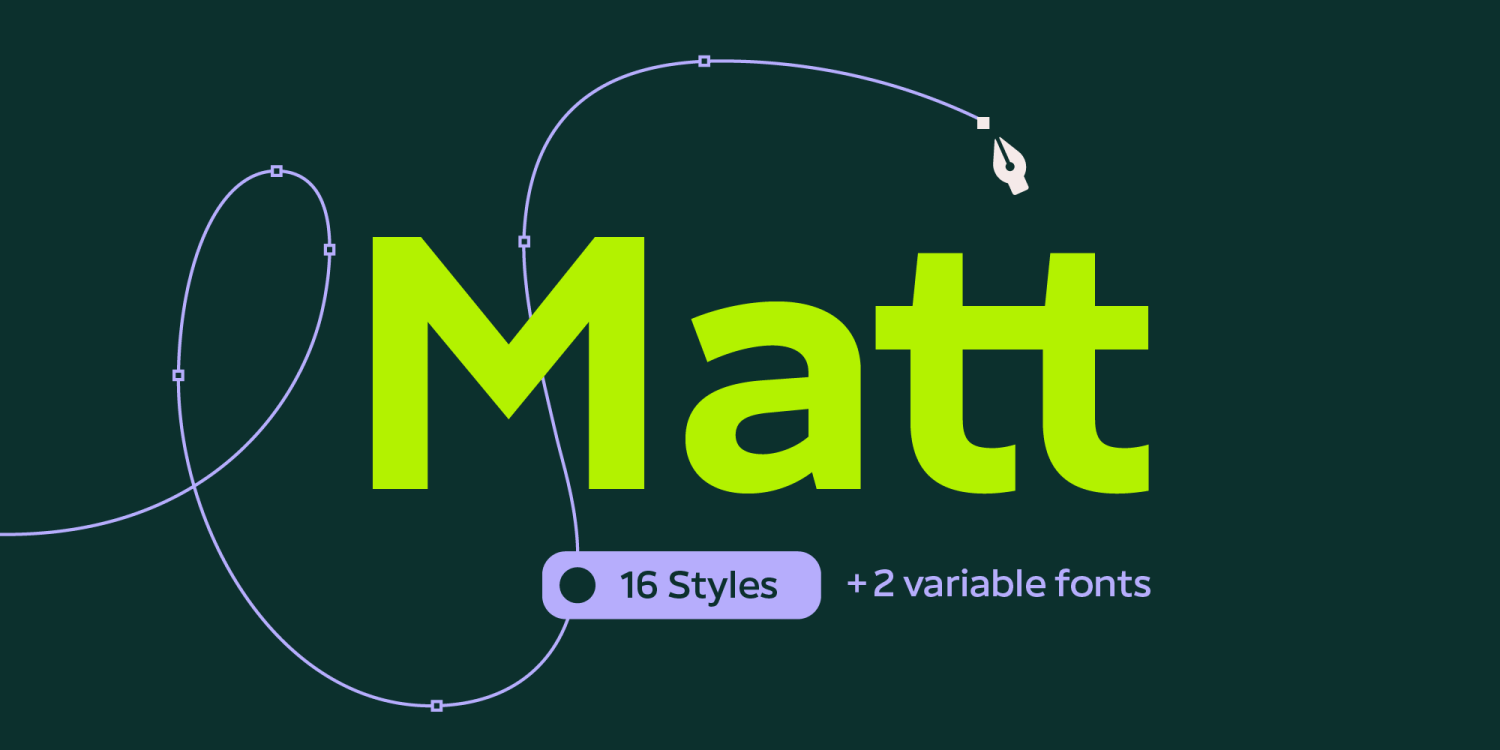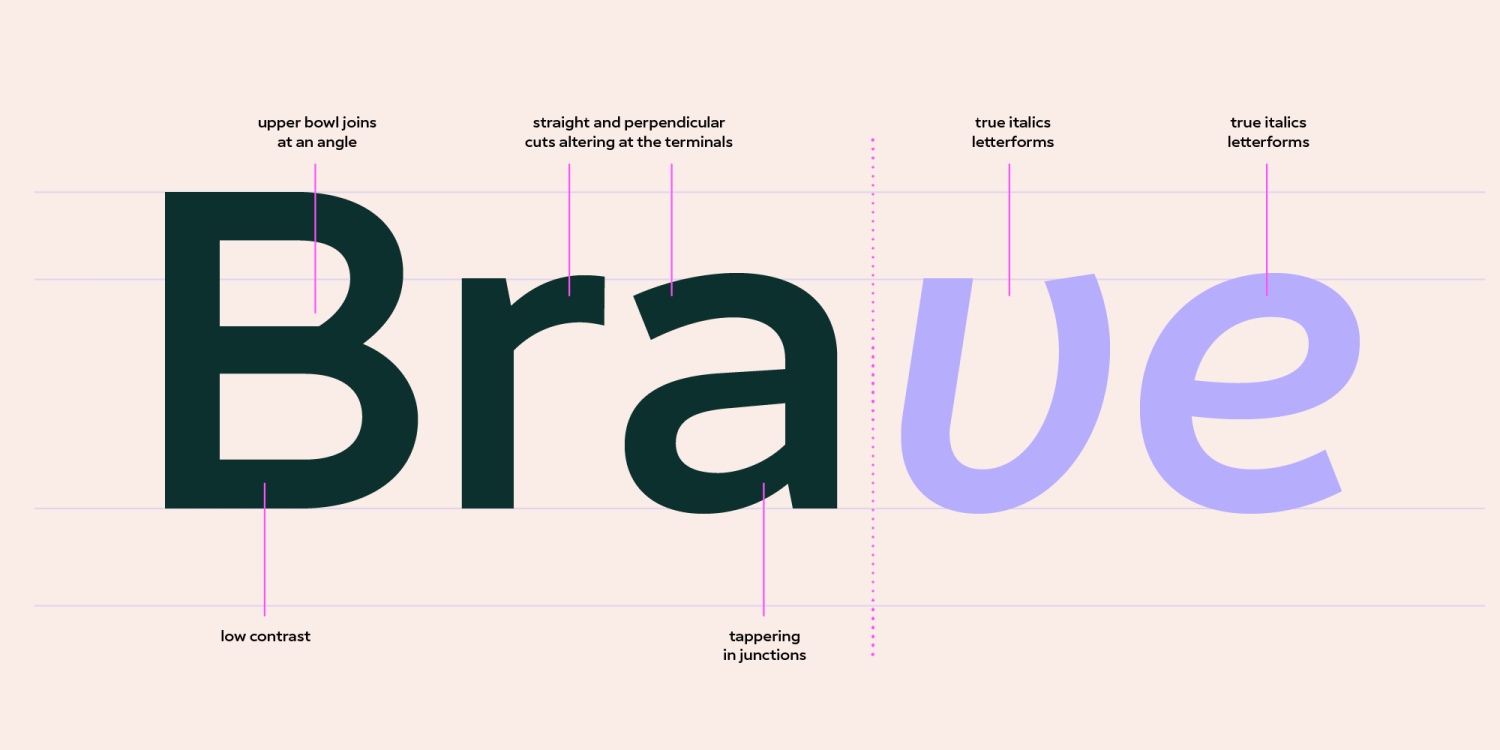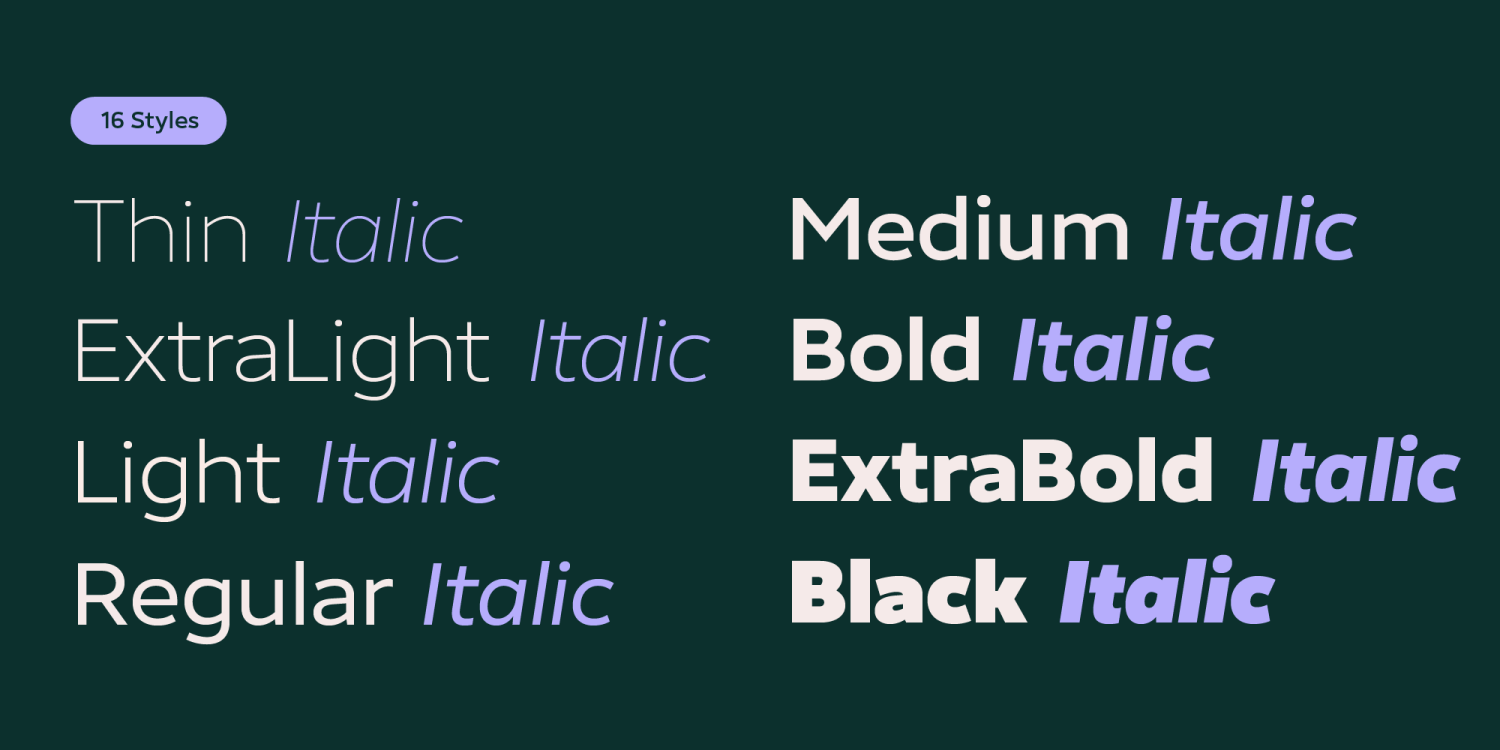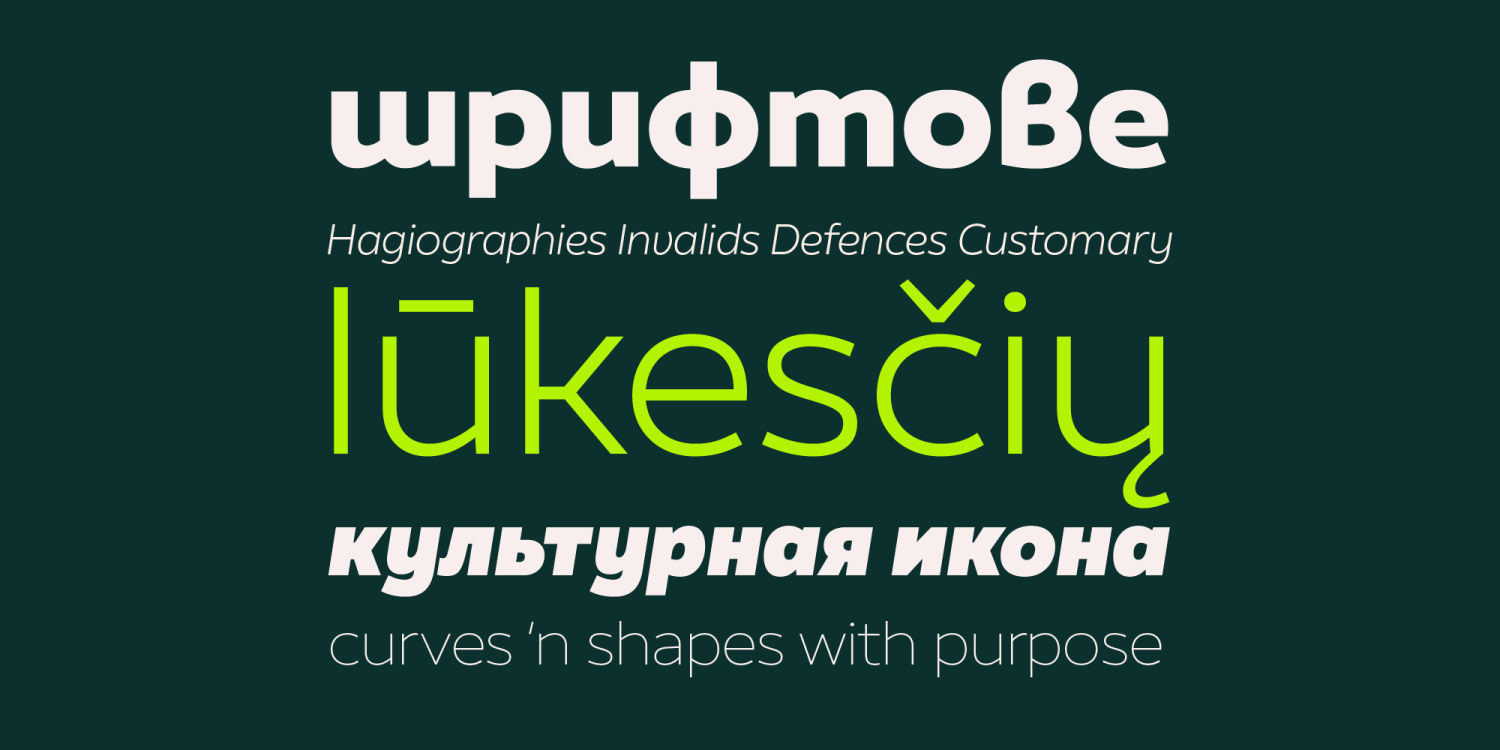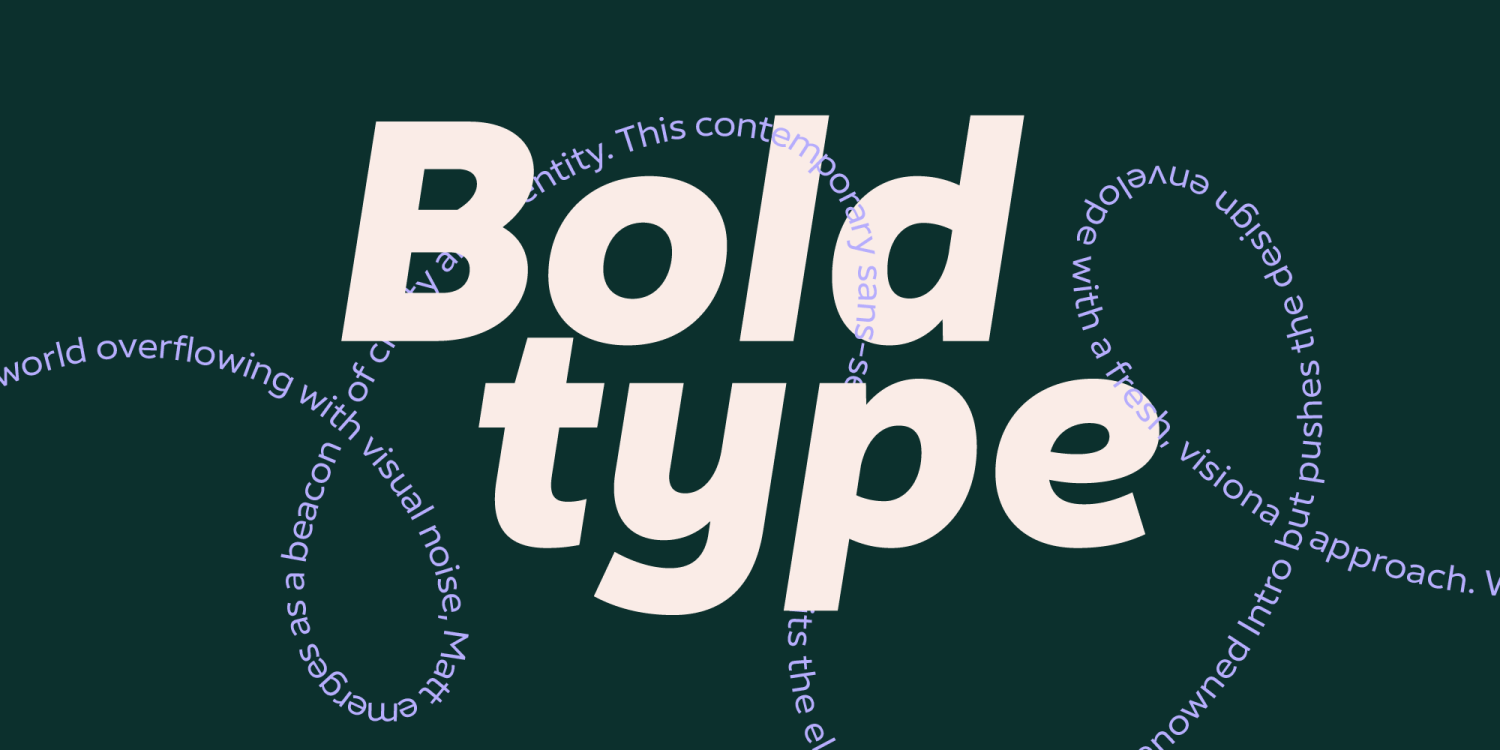
Matt
Font Family by Fontfabric
Introducing Matt: The Modern Sans-Serif
In a world overflowing with visual noise, Matt emerges as a beacon of clarity and identity. This contemporary sans-serif font inherits the elegant curves of the renowned Intro but pushes the design envelope with a fresh, visionary approach.
With its wider width proportions and high x-heights, each letter in Matt is crafted with profoundly conscious care and every millimeter meticulously designed to ensure legibility and recognition. The slightly squared ovals combined with open terminals create a harmonious balance that feels both mindful and strong, perfectly resonating with the modern, professional, and playful ethos of today’s design landscape.
Matt is not just a font; it’s a versatile asset for graphic designers, brand agencies, web design studios, tech companies, and game design studios alike. Whether you’re developing a company branding, designing for web and mobile apps, engaging audiences on social media, or creating captivating YouTube videos, Matt’s extreme utility shines through in every application.
Elevate your projects with Matt, where every curve speaks volumes, every character stands out, and where the need to distinguish oneself in an overwhelming world is met with both elegance and strength.